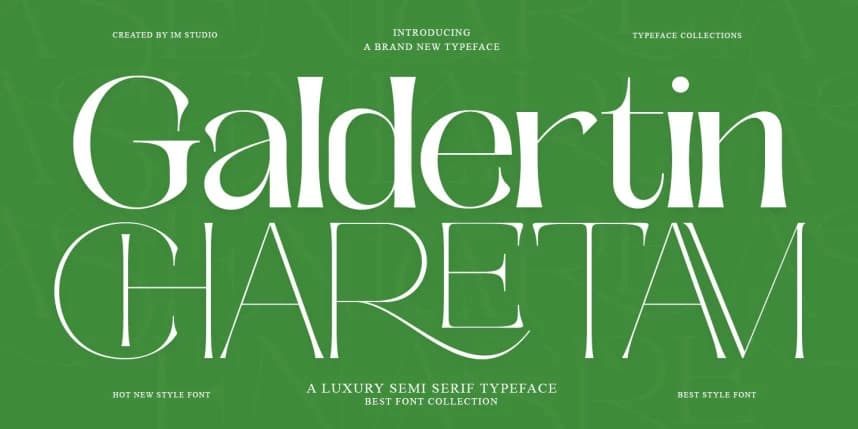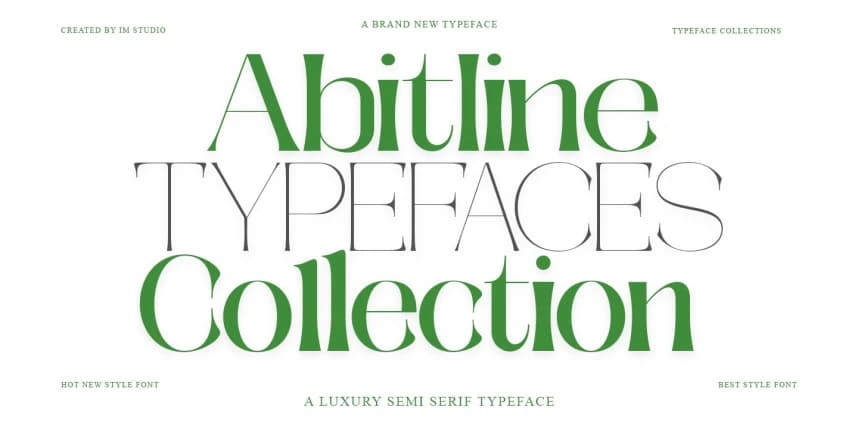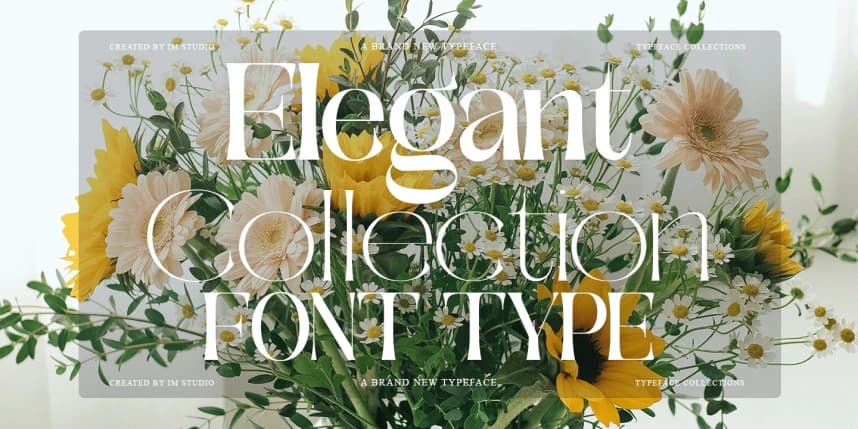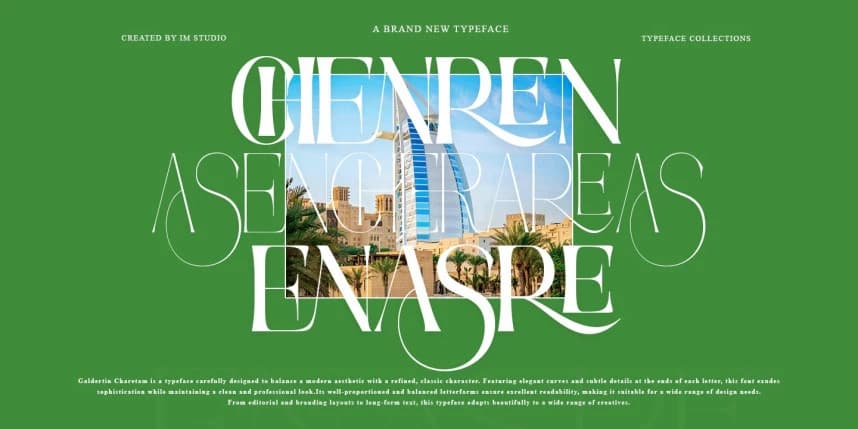
Galdertine Charetam Semi Serif Font
Galdertine Charetam Semi Serif Font – Elegant Semi Serif with Modern Character Galdertine Charetam is an elegant serif typeface that blends timeless sophistication with a modern sensibility. Crafted with refined details and balanced proportions
Galdertine Charetam Semi Serif